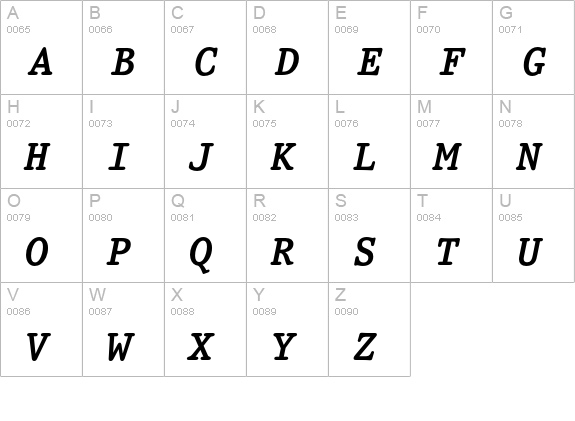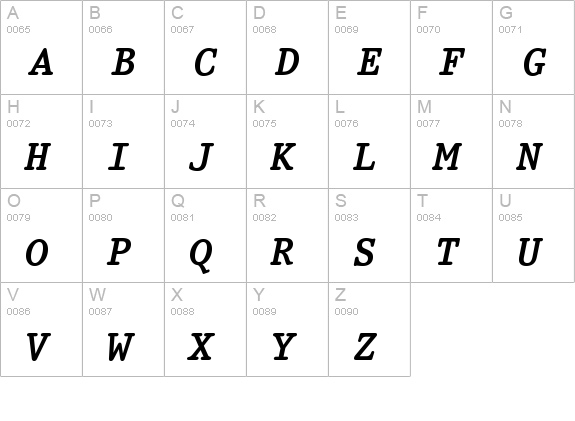
Prestige 12 Pitch Bold Italic Font Details
Prestige 12 Pitch Bold Italic is a strong, high-contrast, italic variant in the Prestige typeface family \xE2\x80\x94 well suited to headlines, attention-grabbing titles, and strong calls-to-action.
The Prestige 12 Pitch Bold Italic font is a bold and dynamic typeface that exudes confidence and sophistication. Its sleek design and slanted style add a touch of elegance to any text or design project. Whether you're creating a modern website, designing a striking poster, or crafting a professional presentation, this font will make a bold statement. Best of all, the Prestige 12 Pitch Bold Italic font is available for free download at FontsMarket.com. This means you can easily access this stylish typeface and enhance your creative projects without any cost. Don't miss out on the opportunity to elevate your designs with the Prestige 12 Pitch Bold Italic font – download it now and start creating stunning visuals today!